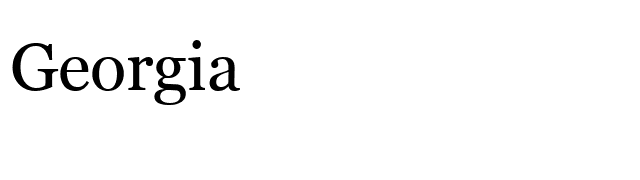
Georgia
It was supposed as a serif font that will appear classy but legible printed little or on low resolution screens. 151 kb total views. Download donate to author.
Georgia is usually a serif typeface built in 1993 by matthew carter and hinted by tom rickner to the microsoft company.